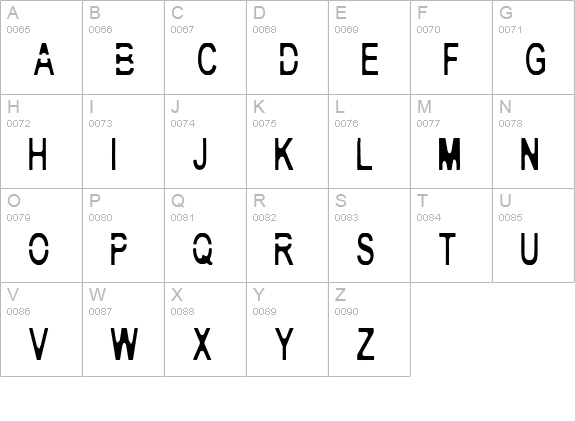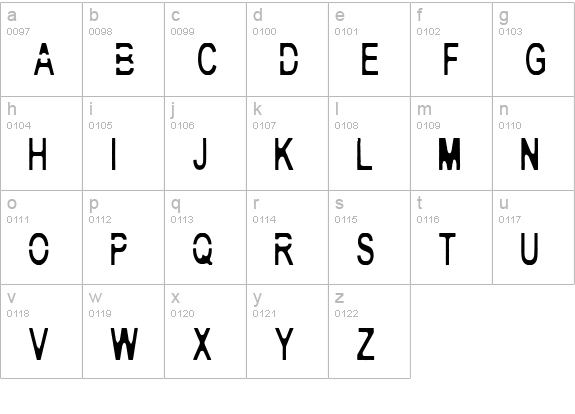
Yes, Sir! Regular Font Details
Yes, Sir! Regular is the standard, neutral variant in the Yes, typeface family \xE2\x80\x94 well suited to general body text, paragraphs, and standard typographic work.
Yes, Sir! Regular font is a versatile and stylish typeface that exudes confidence and professionalism. With its clean lines and bold letterforms, this font is perfect for any project that requires a touch of sophistication. Designed with attention to detail, Yes, Sir! Regular font is easy to read and legible at any size, making it ideal for both print and digital applications. Whether you're designing a logo, creating a website, or working on a branding project, this font will make a bold statement. And the best part? Yes, Sir! Regular font is available for free download at FontsMarket.com. You can easily access this font and start using it in your designs without any hassle. With its wide range of characters and symbols, you'll have everything you need to bring your creative vision to life. Don't miss out on this incredible opportunity to enhance your designs with the elegance and professionalism of Yes, Sir! Regular font. Download it for free at FontsMarket.com and elevate your projects to new heights.